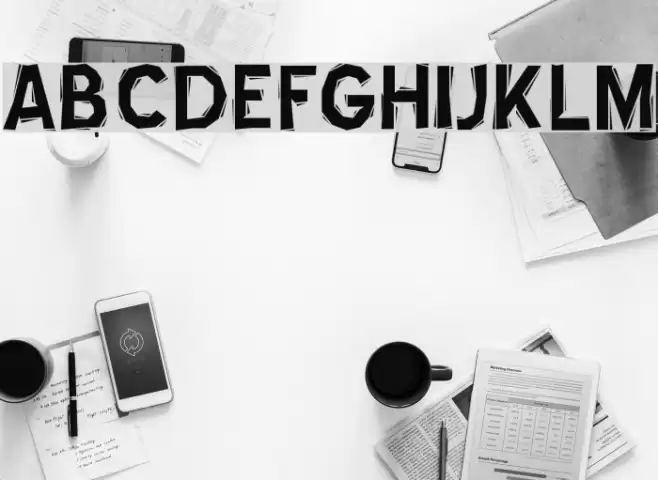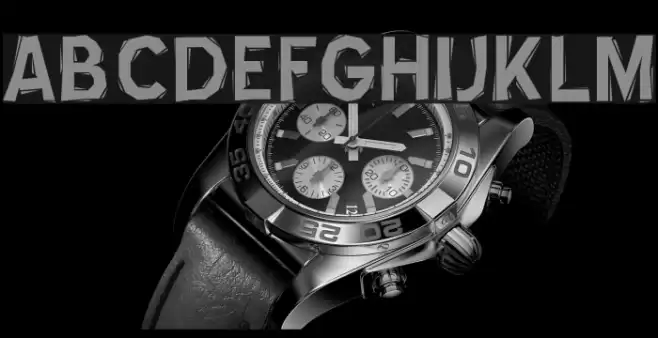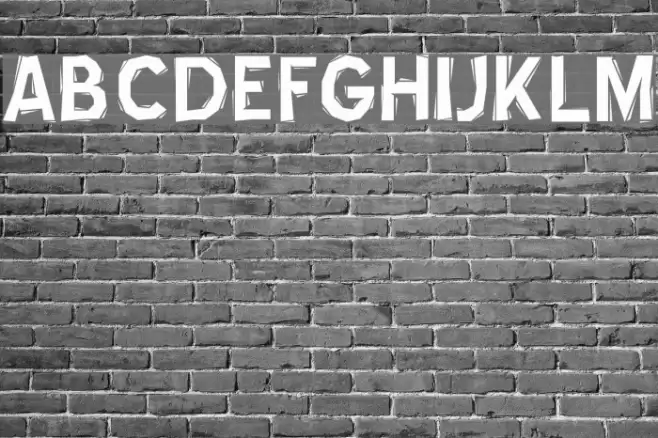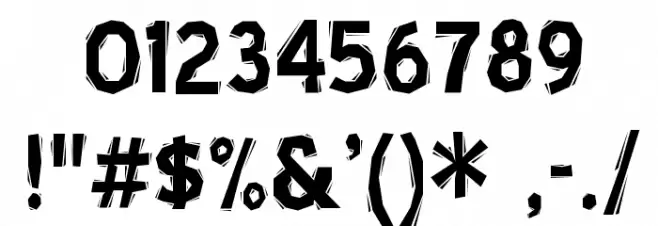
Blue Highway Linocut Font
Blue Highway Linocut Description
This font features a bold and rugged design, reminiscent of linocut art techniques. Each character is uniquely crafted with rough, jagged edges, giving it a hand-carved appearance. The uppercase and lowercase letters maintain a consistent style, with angular cuts and a slightly distressed look. Numbers and special characters follow the same aesthetic, ensuring a cohesive visual experience. The font's distinctive style makes it stand out, offering a creative and artistic vibe suitable for various design projects.
A bold, rugged font with a linocut-inspired, hand-carved appearance from Broken fonts.
- Proposed Projects: Ideal for artistic projects, posters, album covers, and any design requiring a bold, handcrafted look.